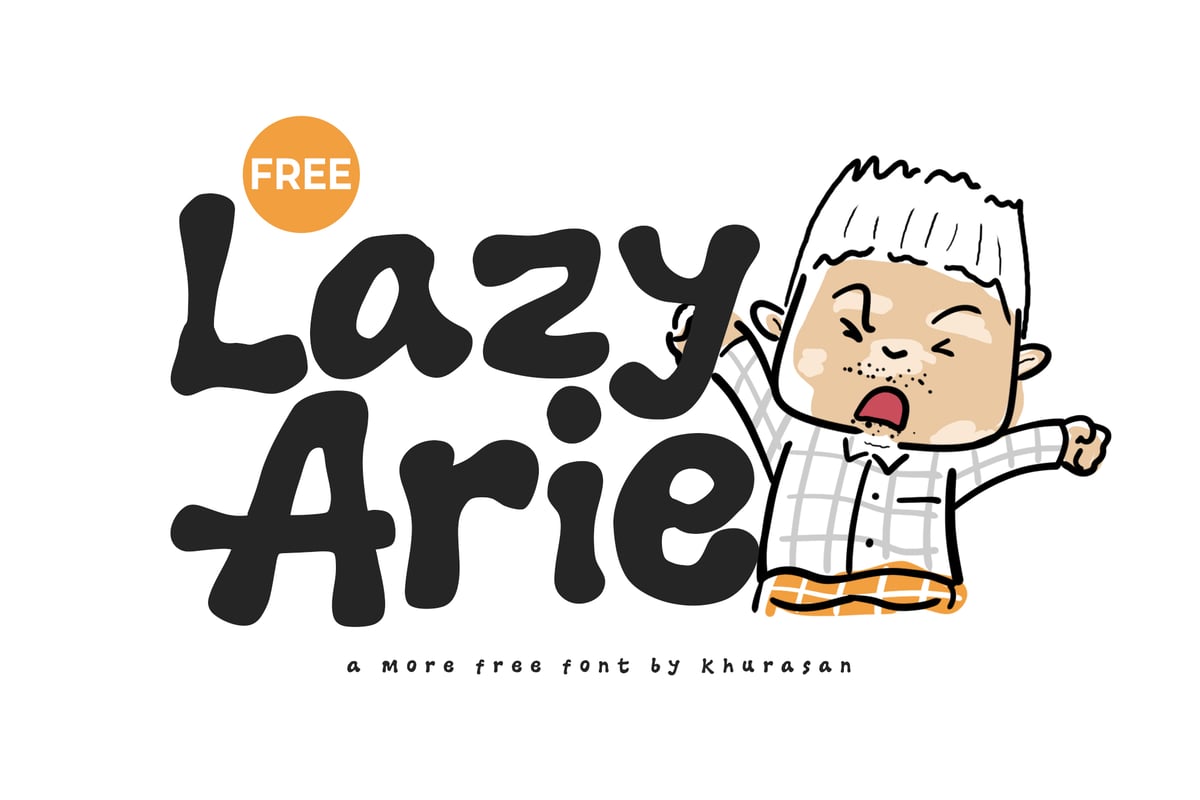
Free Lazy Arie - a Handwriting Free Font
Meet Lazy Arie - the playfully confident handwritten font that brings effortless charm to every design project.
Searching for a typeface that doesn't take itself too seriously? Lazy Arie is your perfect solution! Drawing inspiration from casual doodles and marker sketches, this handwritten font delivers a relaxed, handcrafted aesthetic to any creative work.
Whether you're designing birthday cards or creating trendy apparel, Lazy Arie makes everything look naturally effortless with its joyful personality and undeniable charm.